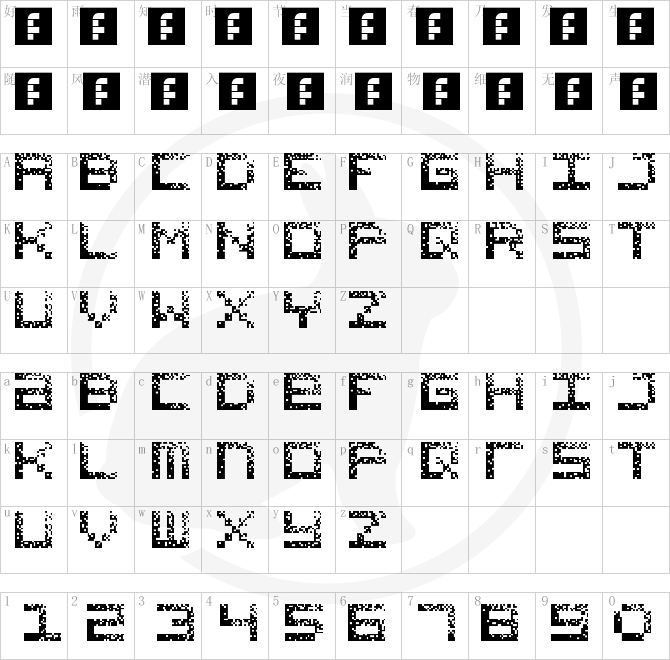
- Font Name:Hacked CRT
Hacked-CRT-Regular.ttf is a very beautiful artistic font, Hacked-CRT-Regular.ttf is widely used in the design and printing of various books and pictures,Hacked-CRT-Regular.ttf has a strong visual impact,Hacked-CRT-Regular.ttf is a commonly used font in newspapers, magazines and books, and is used in posters, e-commerce Poster design, store design, logo design, font design and other fields.Hacked-CRT-Regular.